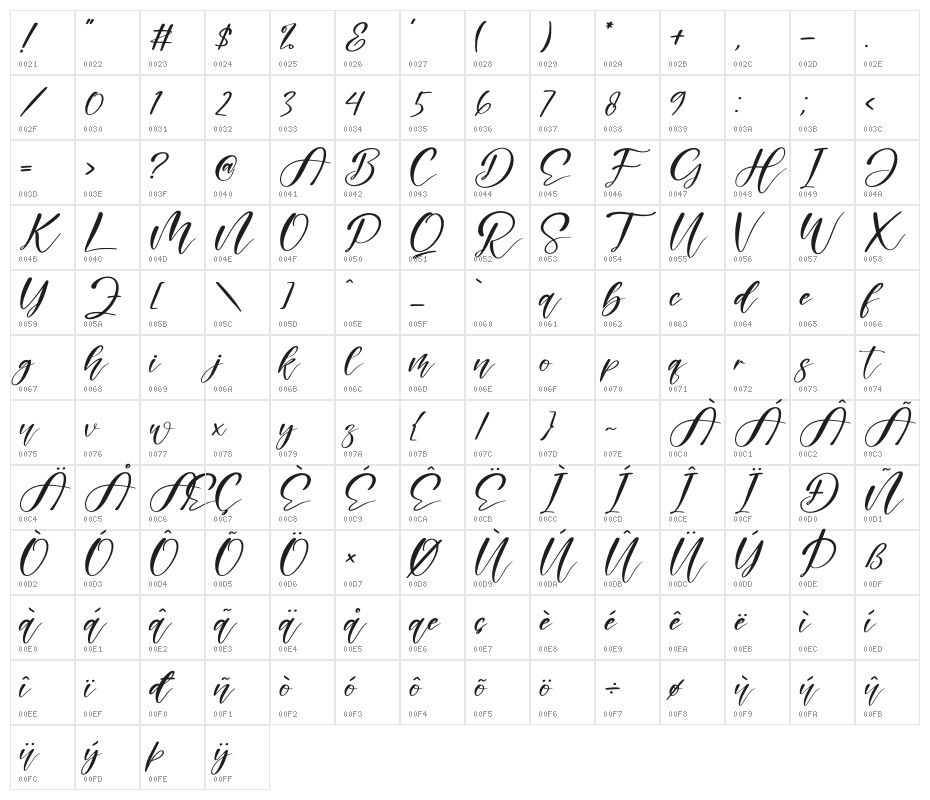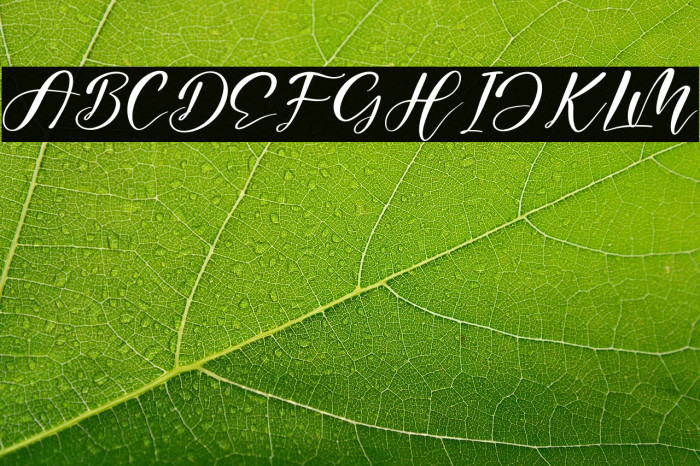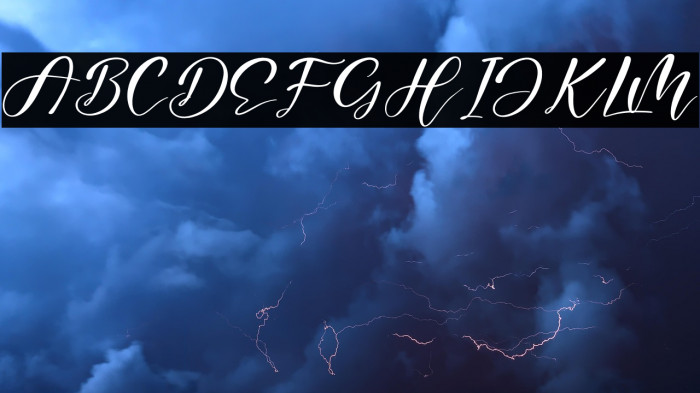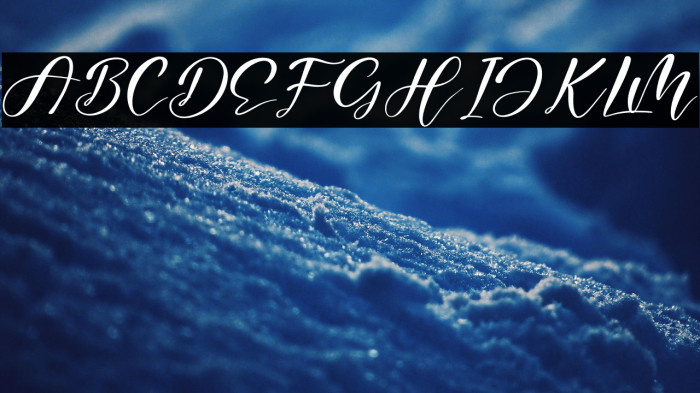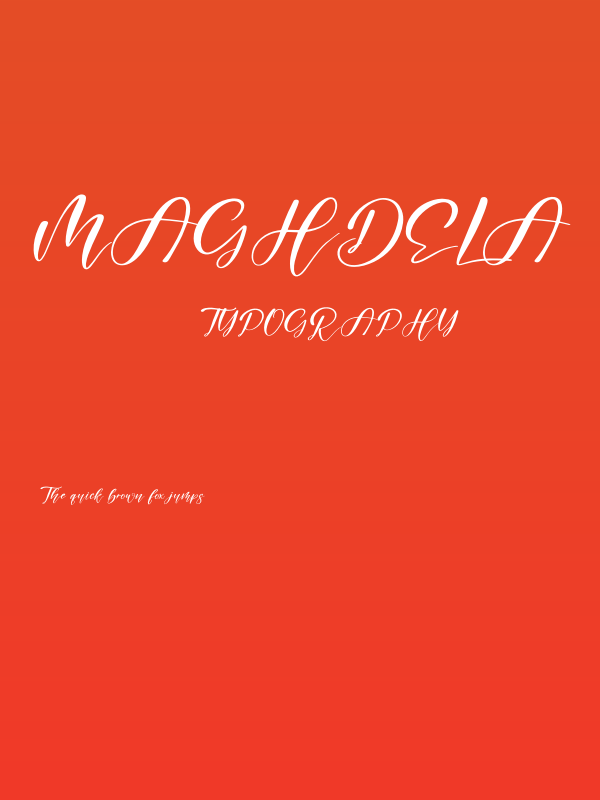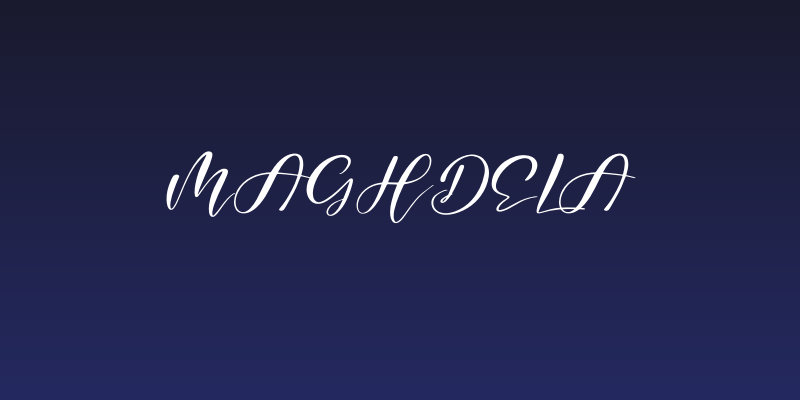
Maghdela Font
Maghdela Description
This font exudes a lively and expressive character with its flowing script style. The letters are elegantly connected, showcasing a dynamic and fluid motion that mimics natural handwriting. The strokes are bold and confident, with a slight slant that adds to its casual yet sophisticated appeal. The uppercase letters are distinct and stylish, while the lowercase letters maintain a harmonious balance, making it ideal for creative and artistic projects. The numerals and special characters are crafted with the same attention to detail, ensuring consistency throughout the typeface.